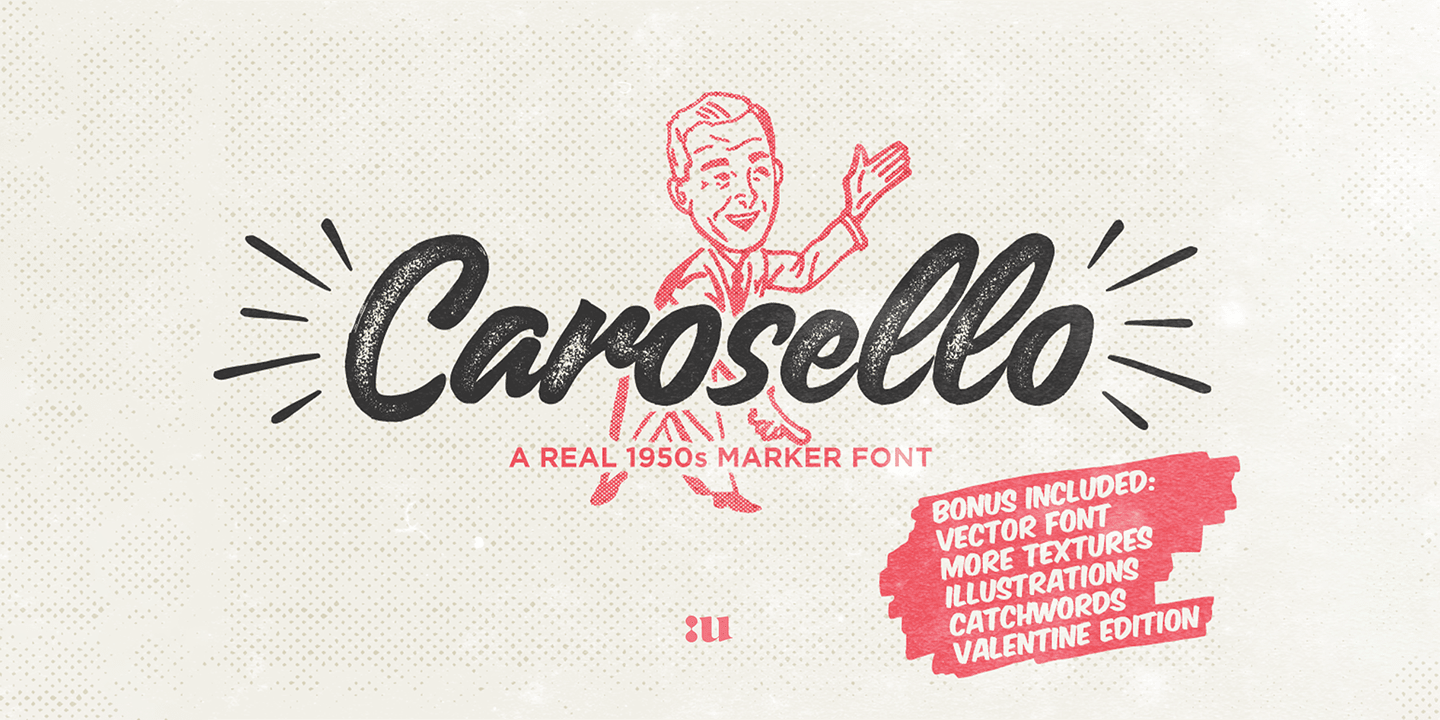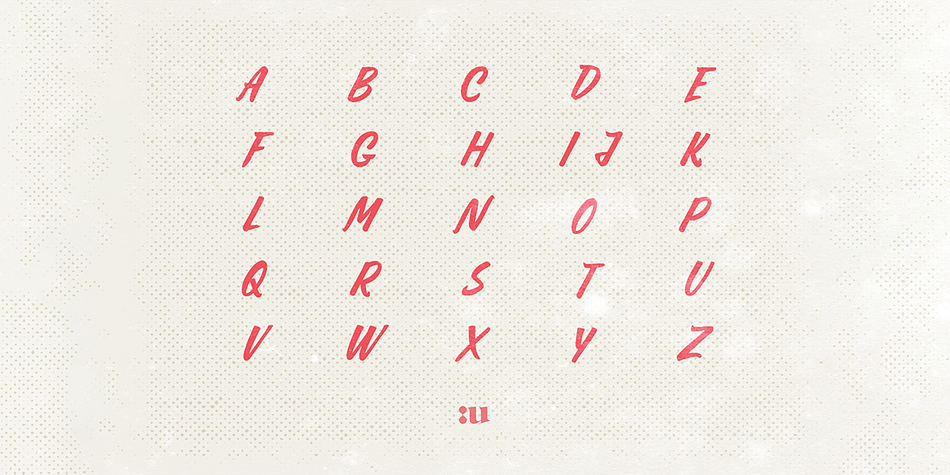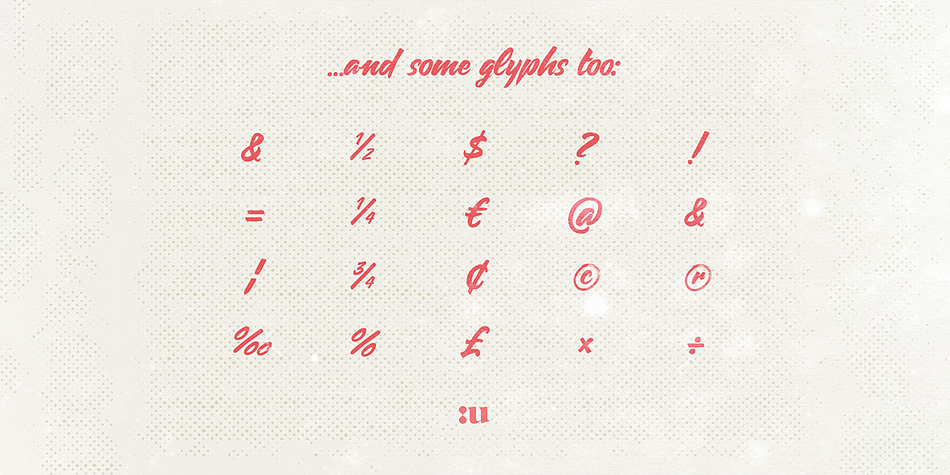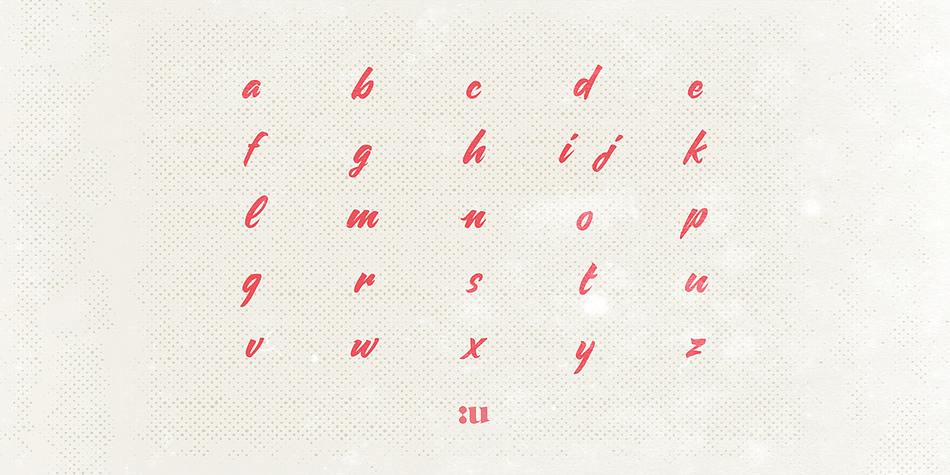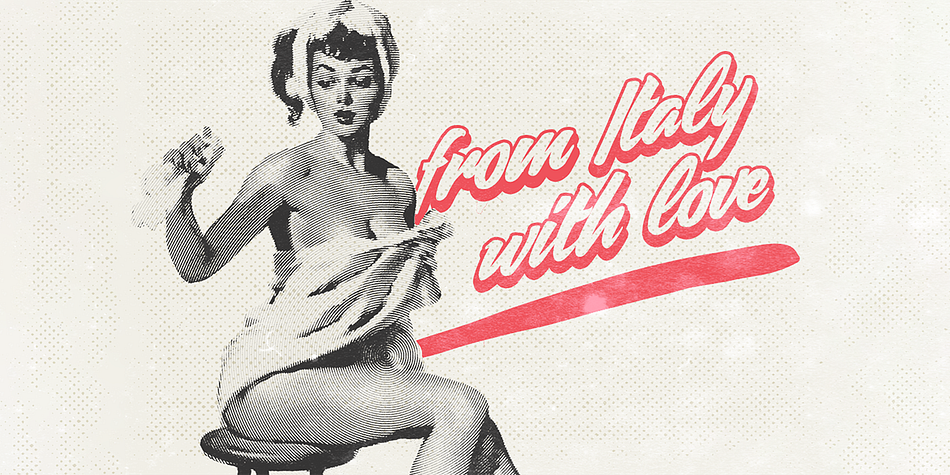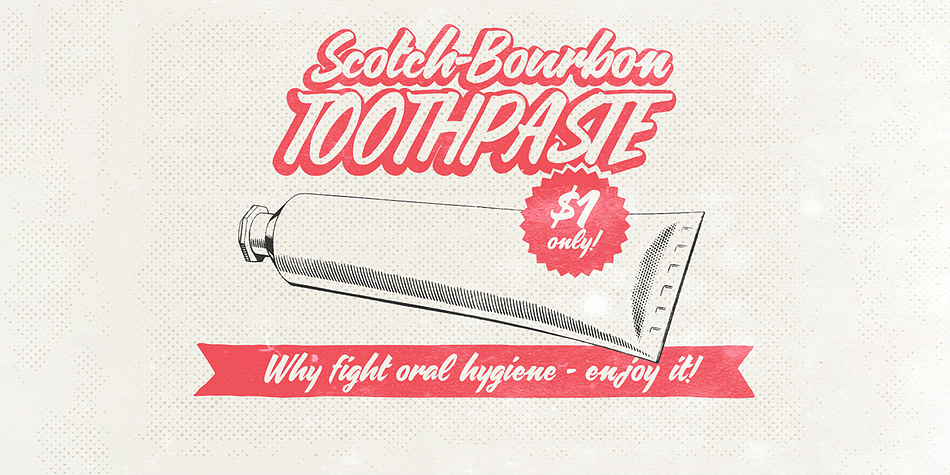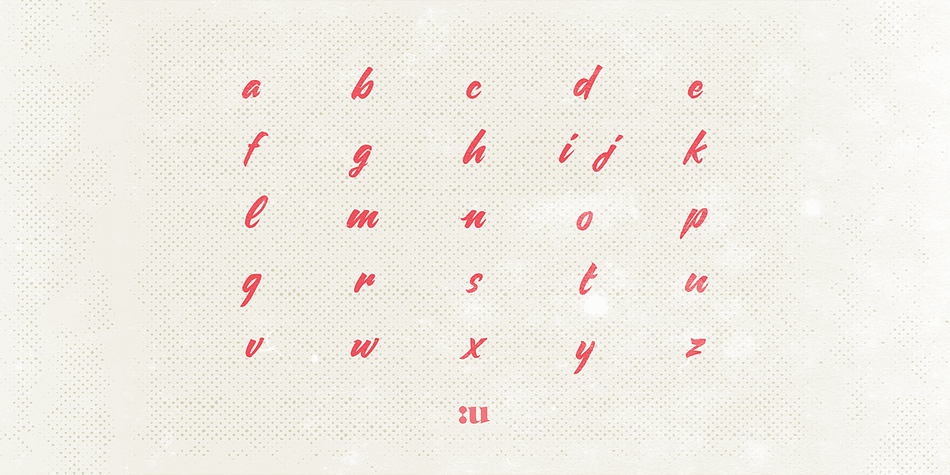
Carosello
Carosello is a brush script and script font family published by Unio Creative Solutions.
Truly inspired by vintage ads, created with a real sharpie to display common hand-written imperfections while preserving typical glyphs style of that historical period.
This hand-made font is highly versatile and allows you to create stunning 1950s hand-lettered quotes, inspirational phrases and vintage designs in a matter of seconds.